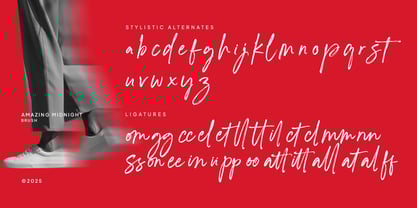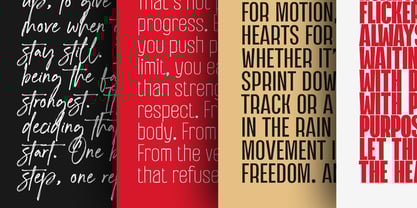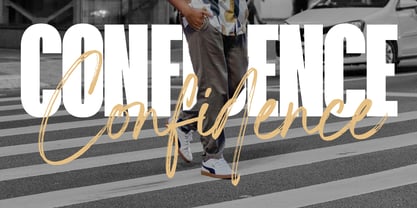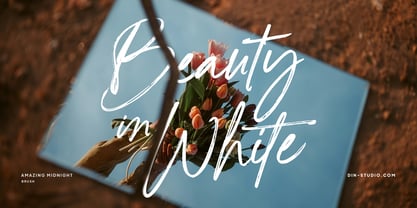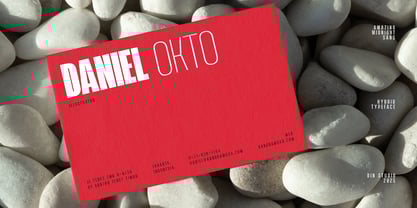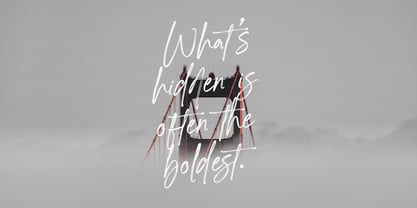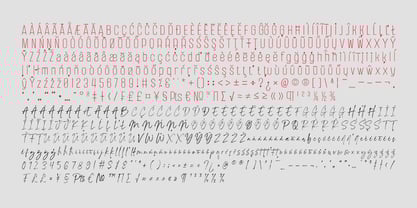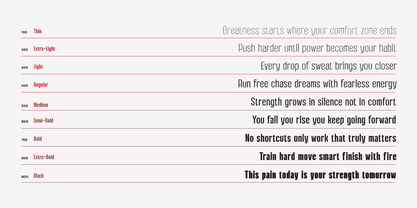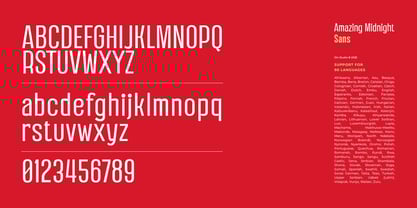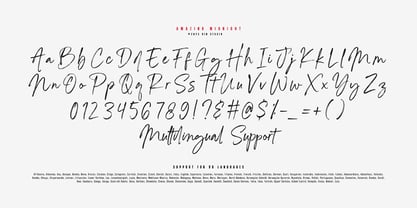
Amazing Midnight
The Amazing Midnight Font Family was designed by Donis Miftahudin and published by Din Studio. Amazing Midnight contains 10 styles and family package options. More about this family
Amazing Midnight is a captivating brush and sans serif font duo designed to bring authentic character and modern simplicity together. The brush script font mimics natural handwriting with expressive, fluid strokes, capturing the true essence of handcrafted brush lettering. Its organic, personal feel adds warmth and authenticity to any project. Complementing this is a clean, minimalist sans serif typeface offered in nine versatile weights, from Thin to Black, providing flexibility and balance for a wide range of applications. Together, Amazing Midnight offers a harmonious pairing. In addition, enjoy the features here.
Features:
• Ligatures
• Stylistic Sets
• Multilingual Supports
• PUA Encoded
• Numerals and Punctuations
Amazing Midnight fits in name cards, branding, packaging, posters, headlines, editorial designs, and many more designs. Find out more ways to use this font by taking a look at the font preview.
Amazing Midnight